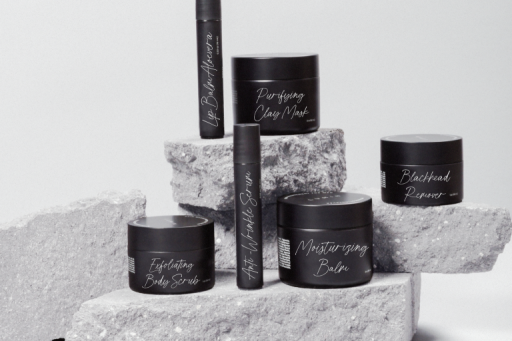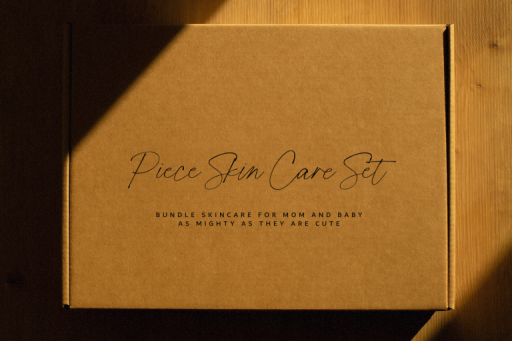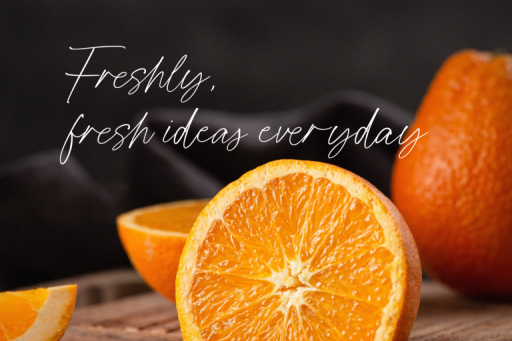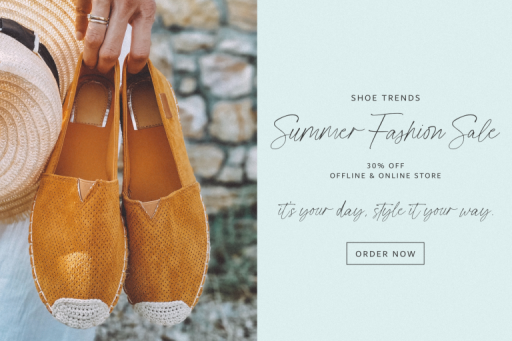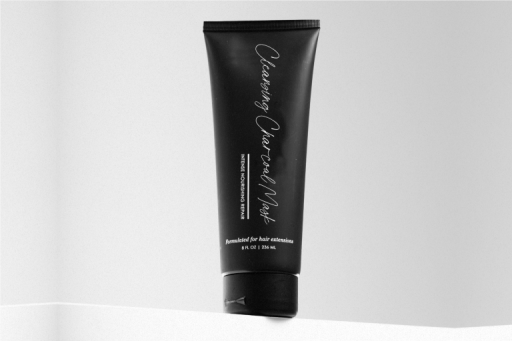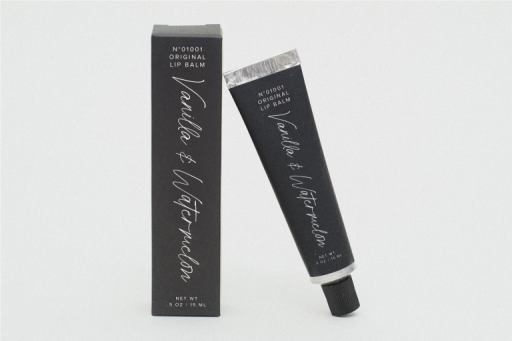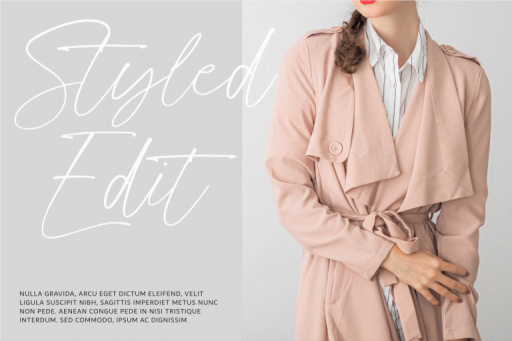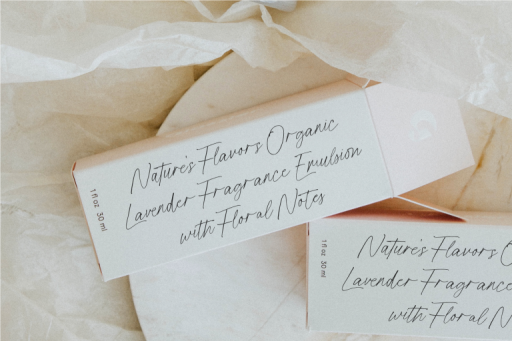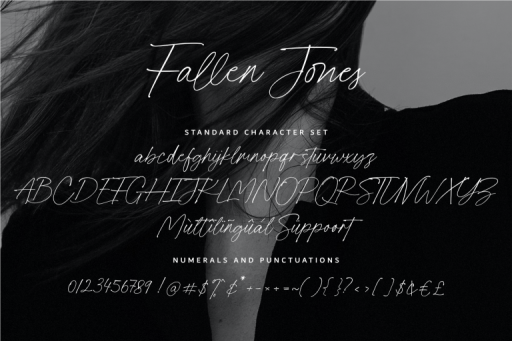
Fallen Jones Font
Fallen Jones – Signature Business Font
Fallen Jones – a handwritten casual font; very luxurious for your design project, soon add Fallen Jones to your font collection.
Fallen Jones includes a large selection of automatic ligatures ( 37 in total ) – they make your type look more like natural handwriting rather than a font, also have a lowercase alternate. Fallen Jones is very beautiful for logos, wedding invites, product packaging, cards, quotes, social media, quotes, branding, watermark, signature-style logos, stylish branding projects, hand-crafted product & stationery designs, and more!
Fallen Jones Features :
• Alternates
• Multilingual